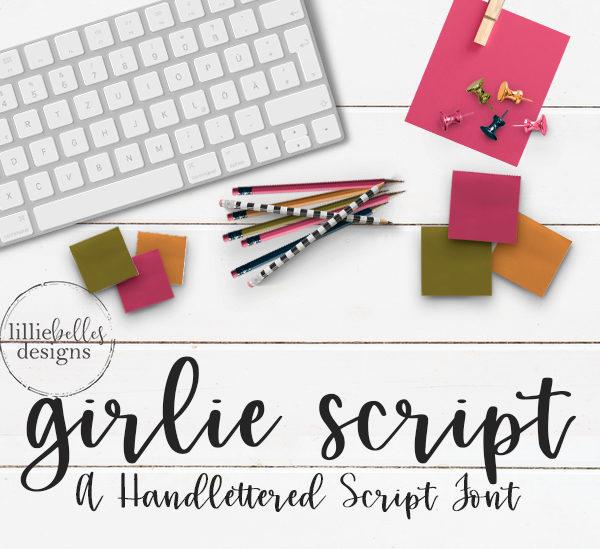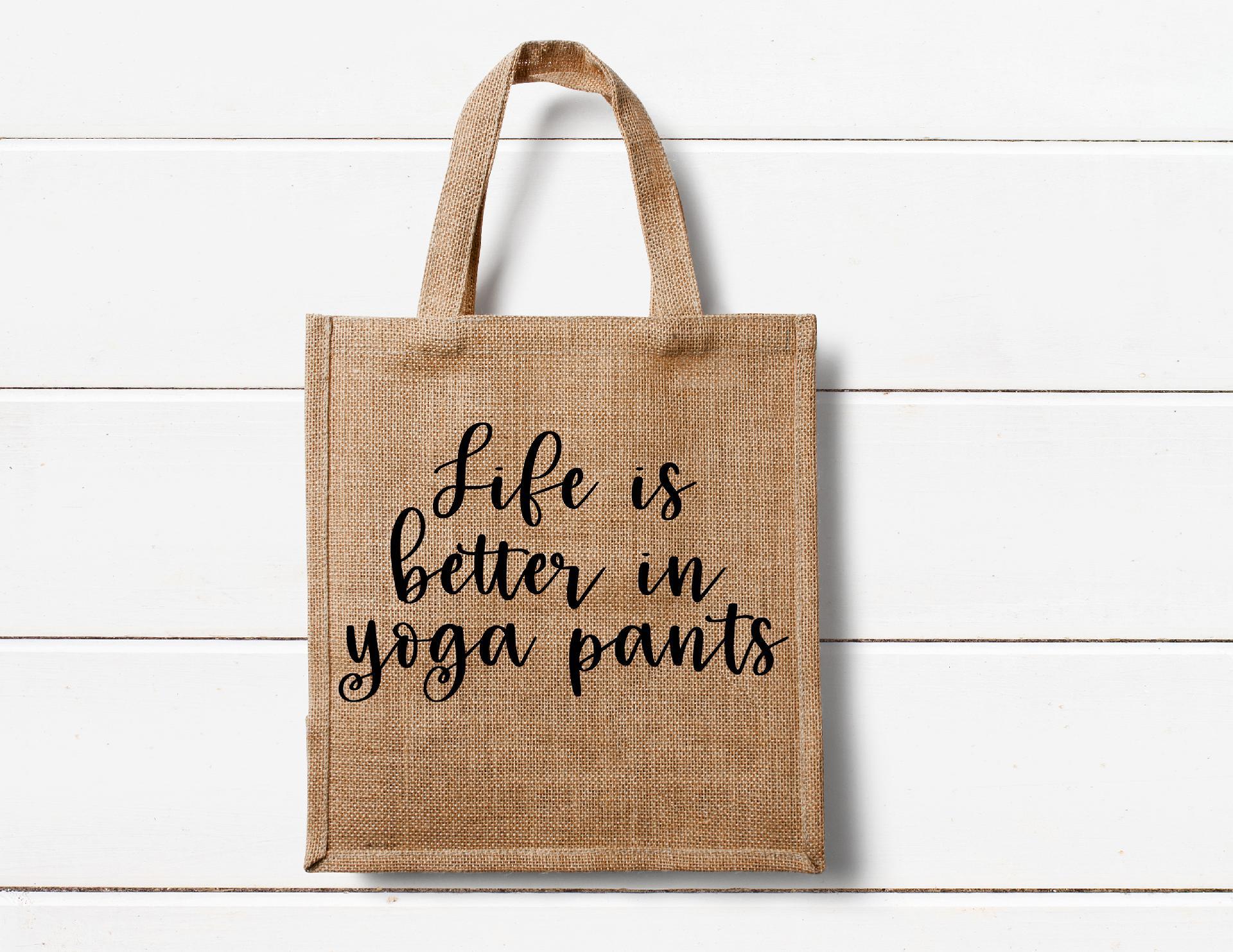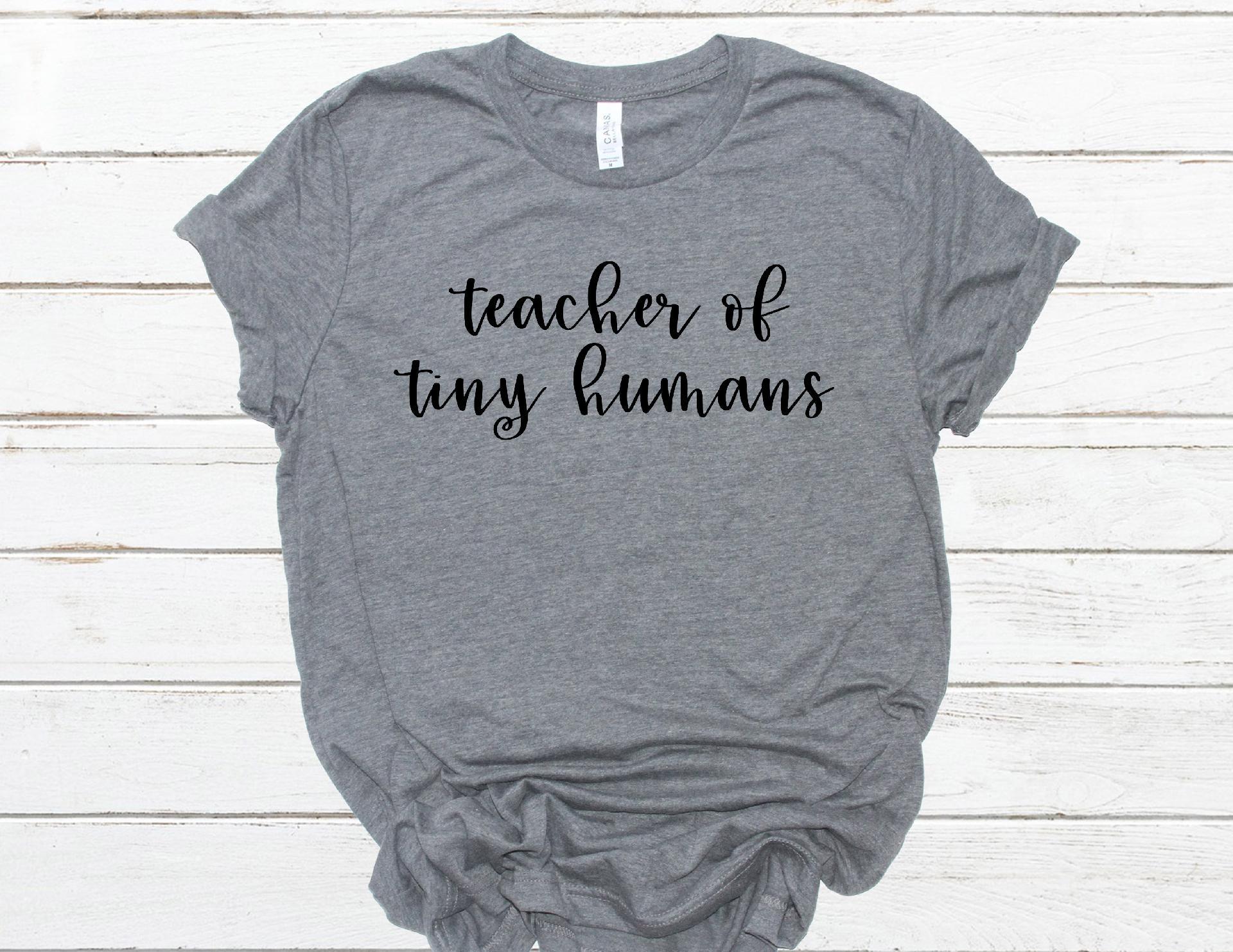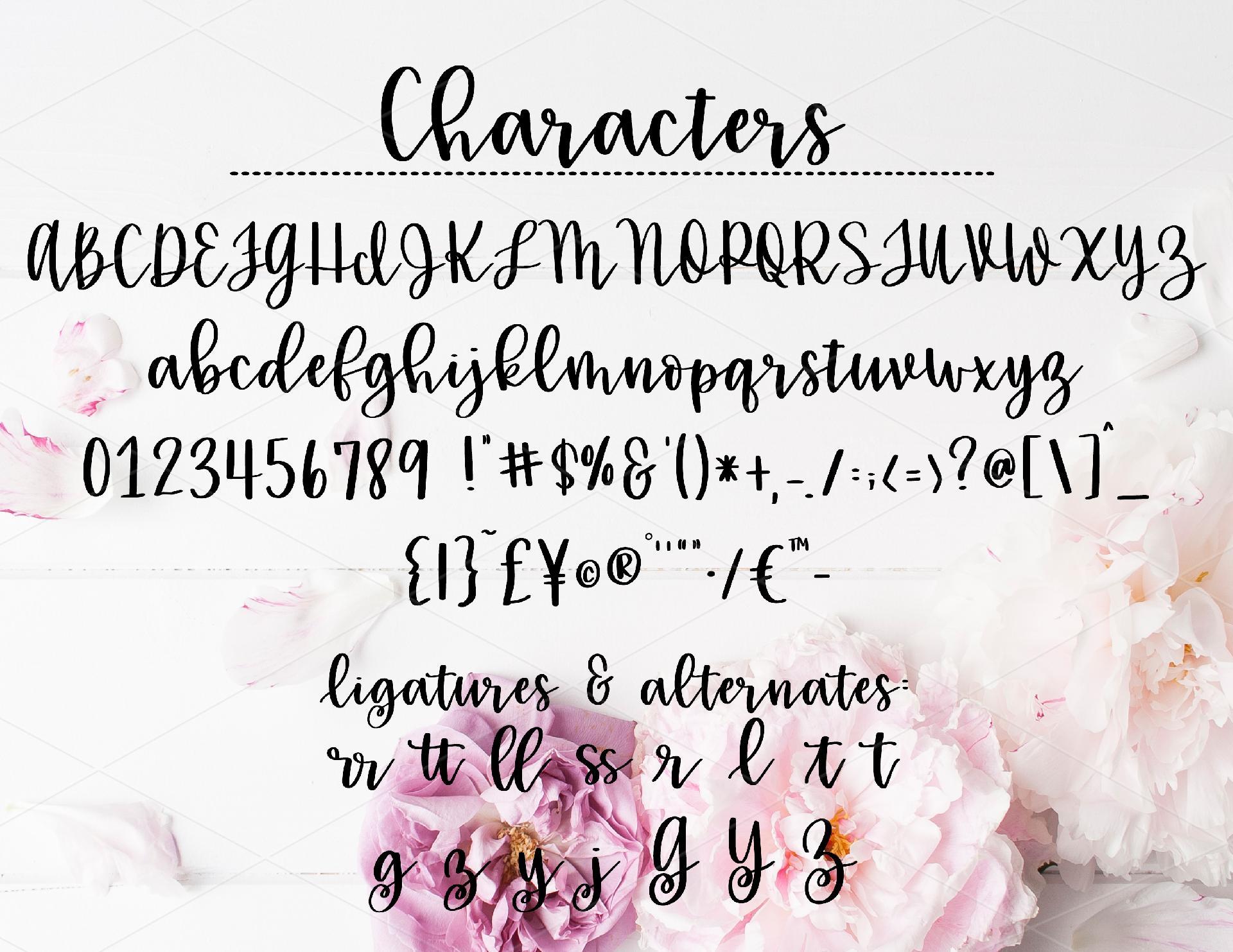
girlie script
girlie script –   A script hand written font. If you’re looking for a bouncy and girly script font, girlie script is for you! I think this may be my most favorite font yet. Girlie script is a handwritten font with uppercase, lowercase and extra ligatures and alternates. Check out the listing photos for examples & the character list. Uppercase and lowercase script characters Numbers, punctuation, and symbols Standard ligatures and special beginning characters .otf and .ttf files PUA encoded making this a cut-friendly font Enjoy!